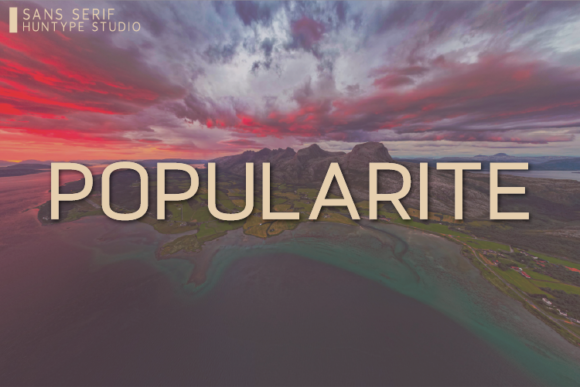
Introducing Popularite, a typeface that reflects confidence and dynamism. This meticulously designed sans serif font by Huntype exudes a timeless elegance that's perfect for crafting captivating magazine advertisements.
With its clean lines and impeccable curves, Popularite Font imparts a touch of sophistication to your creations. Its versatility makes it adaptable to any theme or style, ensuring your message shines through with clarity and impact.
Adding Popularite to your font library is like unlocking a treasure trove of creative possibilities. Imagine headlines that leap off the page, body text that flows effortlessly, and quotes that resonate with power. Popularite's subtle yet striking presence will enhance every element of your design.
Embrace the allure of Popularite Font and create advertising materials that inspire, engage, and leave a lasting impression. From eye-catching billboards to captivating brochures, let the sophistication of Popularite elevate your marketing efforts to new heights.
Unleash your creativity, captivate your audience, and create designs that resonate. Choose Popularite, the font that empowers your words and sets your brand apart.